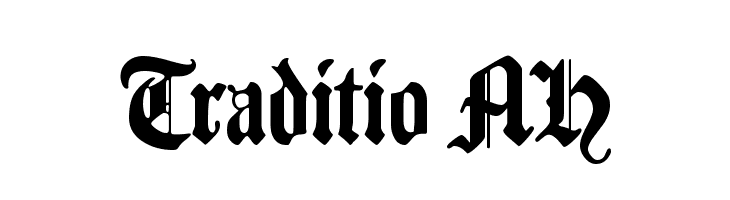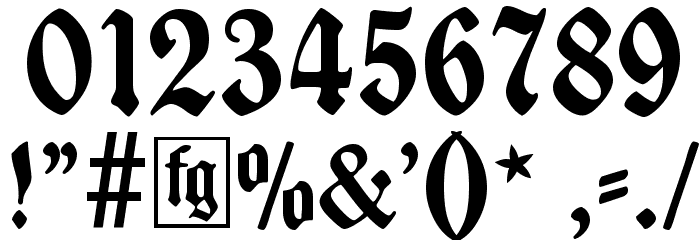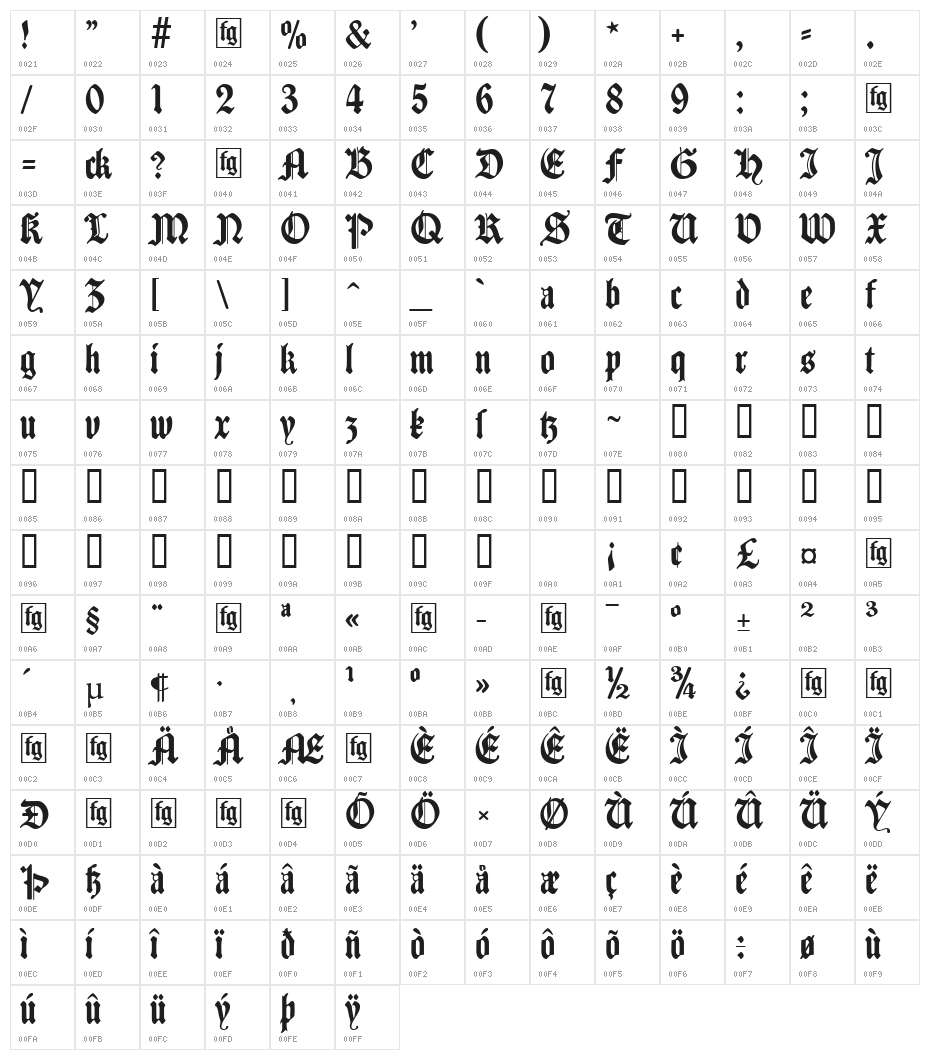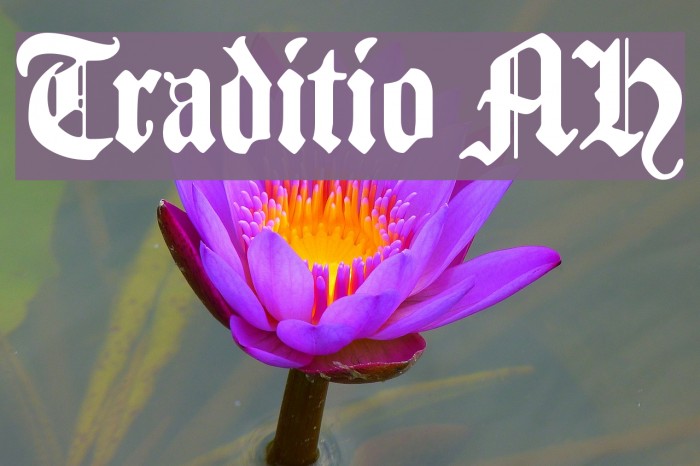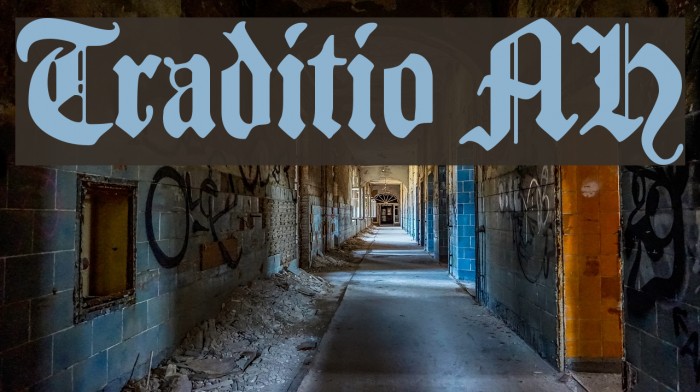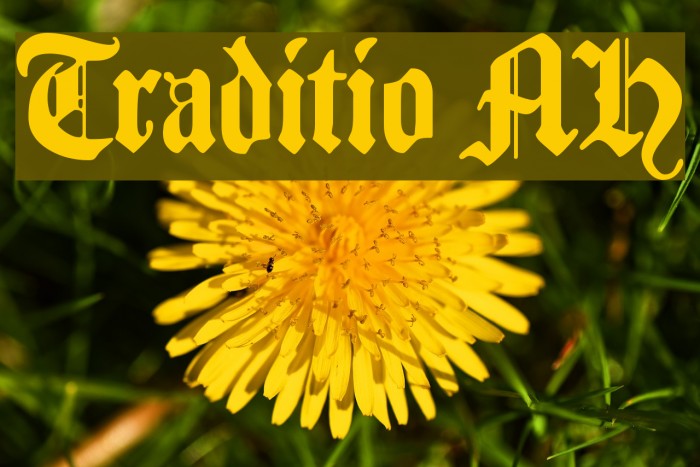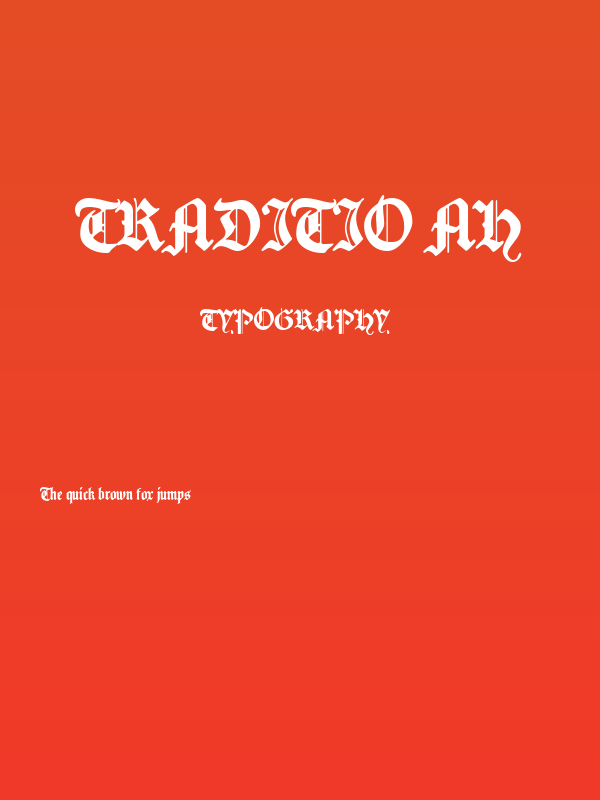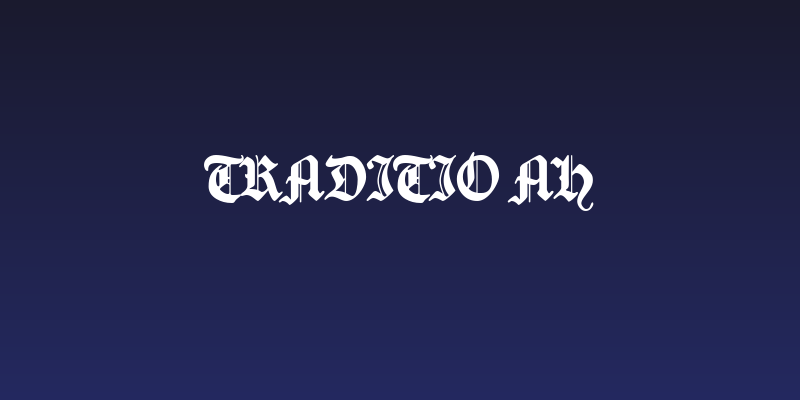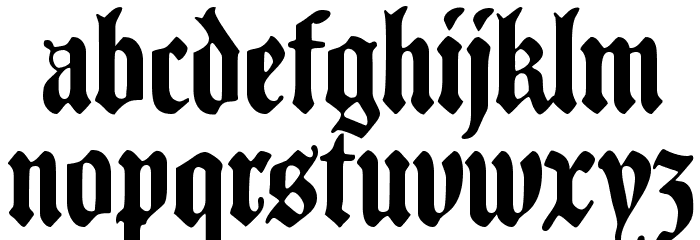
Traditio AH Font
Traditio AH Description
This font embodies a traditional blackletter style, characterized by its intricate and ornate letterforms. The uppercase letters feature sharp, angular lines with a distinct medieval flair, while the lowercase letters maintain a consistent weight and style, offering a harmonious blend of elegance and readability. The numerals are bold and striking, complementing the overall aesthetic. Special characters are designed with the same attention to detail, enhancing the font's decorative appeal. This typeface is perfect for projects that require a historical or gothic touch, such as event invitations, posters, or branding for vintage-themed products.
| Proposed Projects | Ideal for vintage-themed branding, event invitations, posters, and decorative designs. |